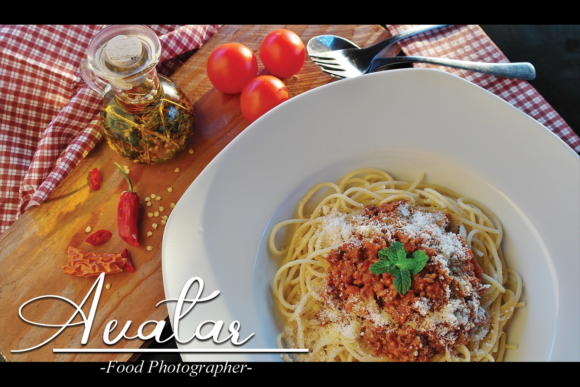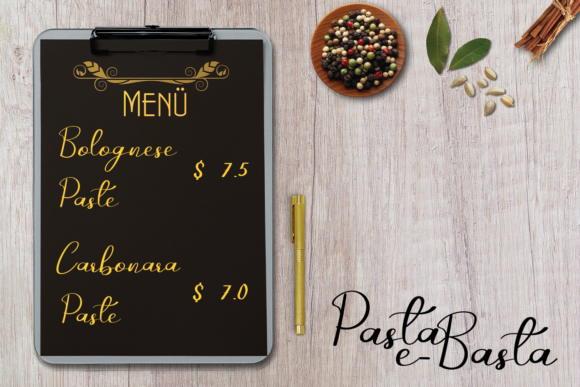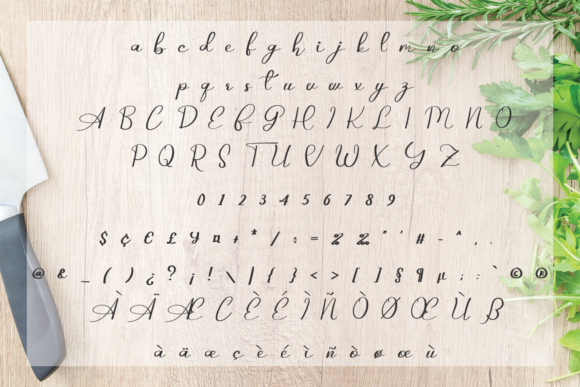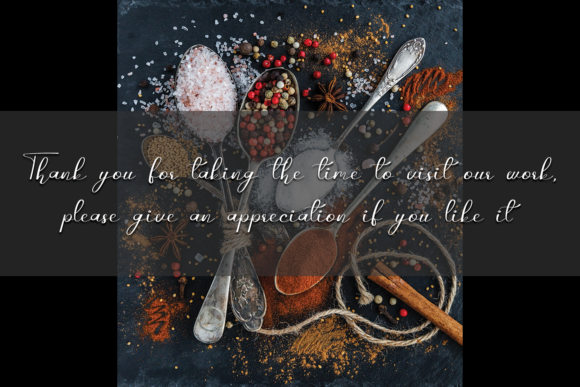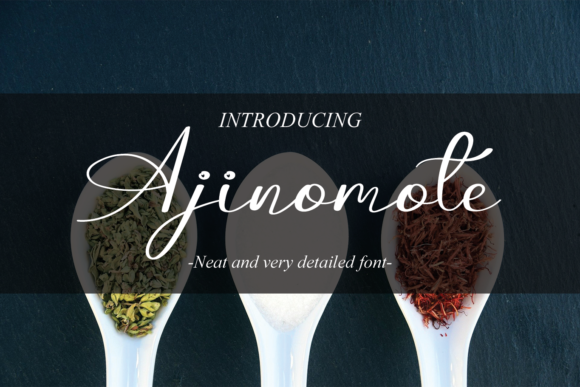
The Ajinomote Font: A Beautiful Handwritten Addition to Your Design Arsenal
I’ll never forget the time I was working on a project for a client who wanted a font that was both elegant and playful. I had spent hours scouring the internet for the perfect one, but nothing seemed quite right. That was until I stumbled upon the Ajinomote font. Its beautifully curved letters and cursive flow immediately caught my eye, and I knew I had found what I was looking for. In this article, I’ll be sharing my experience with the Ajinomote font, including its features, how to use it, and some similar alternatives.
A Personal Review of Ajinomote
So, what do I love about the Ajinomote font? Here are a few things that make it stand out:
- ✨ Beautifully curved letters that give it a elegant feel
- ✅ A cursive flow that makes it perfect for creative projects
- 💫 A wide range of uses, from crafting and scrapbooking to digital design and branding
- 👍 Highly legible, even at small sizes
- 🤔 Some users may find the font a bit too ornate for certain projects
- ⚠️ It may not be the best choice for body text, as it can be a bit too decorative
How to Use Ajinomote in Your Designs
The Story Behind Ajinomote
The Ajinomote font was designed with the goal of creating a beautiful, elegant handwritten font that could be used for a wide range of creative projects. The designer wanted to create a font that was both playful and sophisticated, with a unique personality that would stand out from other fonts. The result is a font that’s perfect for crafters, designers, and creative hobbyists who want to add a touch of elegance to their projects.
| Font Name | Ajinomote Font |
| Author | erik studio |
- Q: What is the Ajinomote font?
- A: The Ajinomote font is a beautiful, elegant handwritten font that’s perfect for creative projects.
- Q: Is the Ajinomote font suitable for body text?
- A: While the Ajinomote font is highly legible, it may not be the best choice for body text due to its decorative nature.